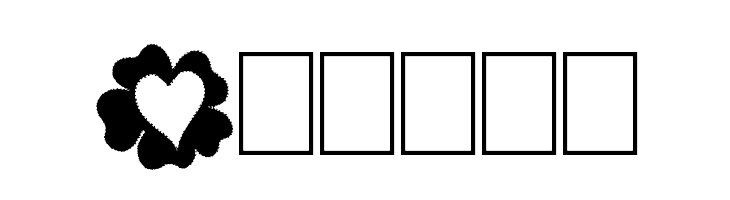
A playful font composed of heart-shaped patterns, perfect for romantic and whimsical designs.
A playful, heart-patterned decorative font with a whimsical and friendly style.
A playful, heart-encased decorative font with a bold, hand-drawn style.
A whimsical, heart-shaped font with a handwritten, brush-like style.